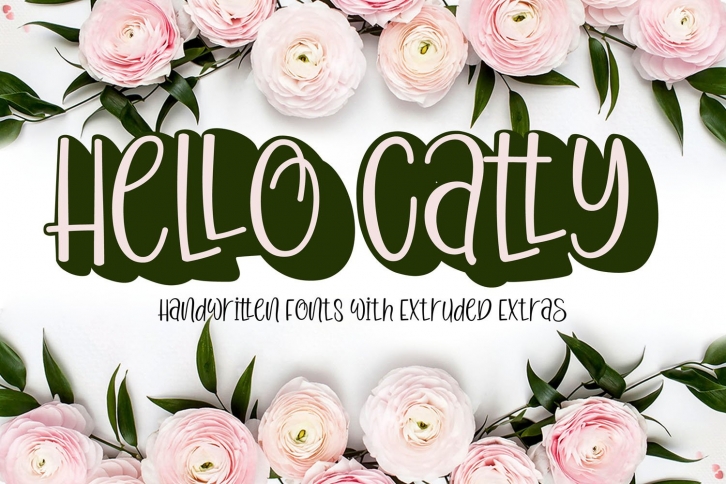
Hello Catty With extruded extras is a trendy and unique font with an authentic style. It was designed by FontCloud and it's a great choice for creative people who need such a font. It was released on May 22, 2020 and the file size is 16.49 MB. Hello Catty With extruded extras will add an organic vibe to any design idea!